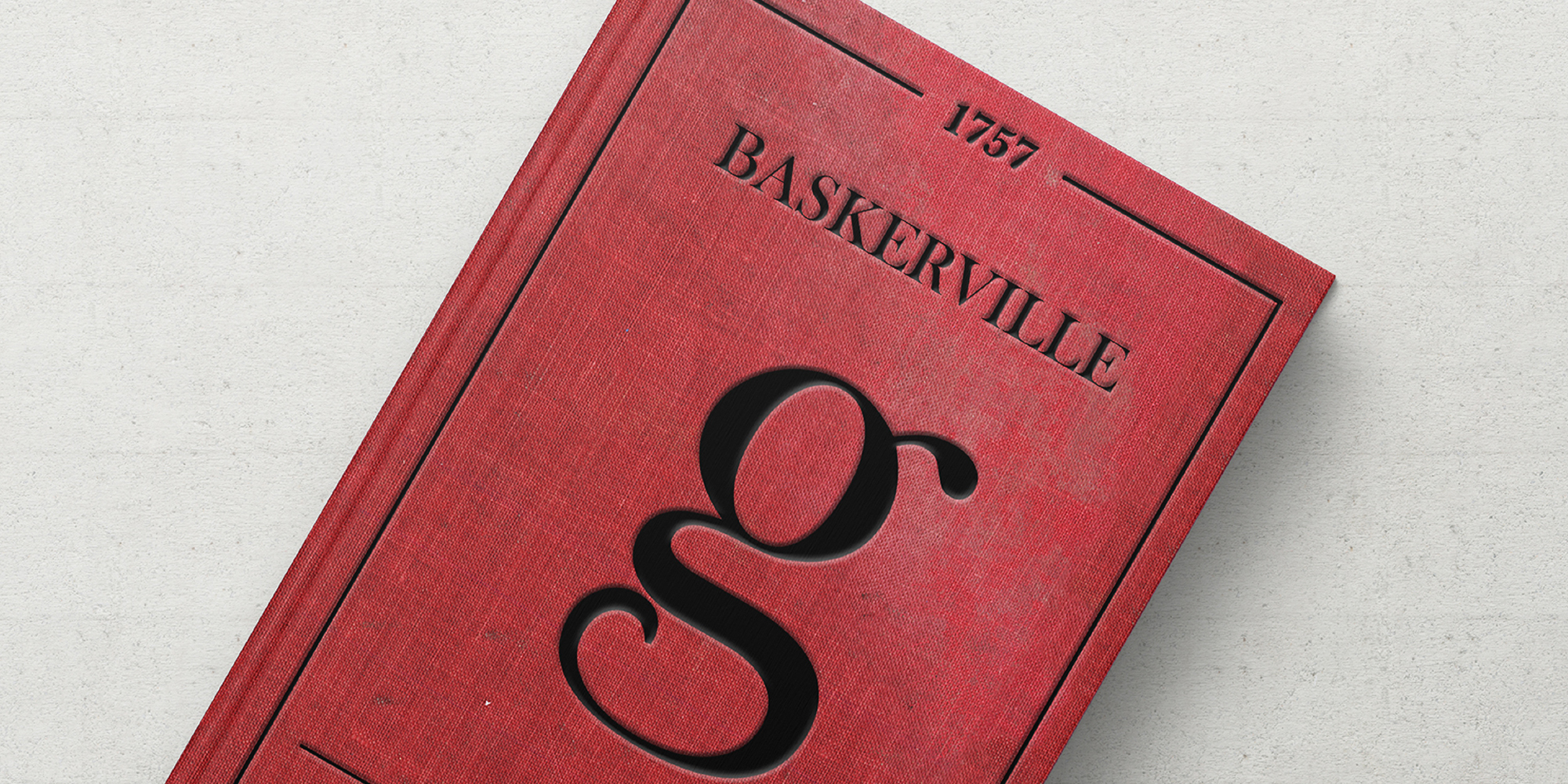
Baskerville Font is perfect for classical book publishing, prestigious literary magazines, academic journal layouts, traditional newspaper design, historical document reproduction, elegant wedding invitations, sophisticated business correspondence, classical music programs, heritage brand identity, and distinguished institutional communications.
What makes Baskerville Font so exciting is its timeless elegance that represents the pinnacle of 18th-century typographic artistry and continues to define sophisticated communication today. This typeface features refined transitional serifs with high contrast between thick and thin strokes, creating exceptional readability and classical beauty that has influenced typography for centuries. The font's distinguished and scholarly character communicates authority and cultural refinement, making it perfect for institutions and brands seeking to establish credibility through connection to the rich tradition of classical learning and literary excellence.
Baskerville Font family includes Regular, Italic, Bold, and Bold Italic weights, along with small caps, oldstyle figures, and extensive punctuation marks. The family also features special character sets including classical symbols, scholarly ligatures, and traditional typography elements that enhance the font's connection to academic publishing and literary tradition themes.
The Baskerville Font Free Download package offers designers access to prestigious classical typography that brings scholarly elegance to any traditional project. This distinguished typeface combines 18th-century design principles with modern technical functionality, creating a powerful visual tool for academic institutions and heritage-focused organizations. Whether you're developing traditional brand identities, designing scholarly publications, or creating distinguished marketing materials, this font provides the authoritative character needed to communicate knowledge and cultural sophistication.
Baskerville Font supports comprehensive character sets including Latin alphabets, numerals, punctuation marks, and special scholarly symbols. The font's classically proportioned spacing reflects traditional printing traditions while ensuring superior readability in both print and digital environments. Its OpenType features include contextual alternates, historical ligatures, and classical typography options that enhance document quality and scholarly credibility.
Professional designers and academic institutions choose Baskerville Font for projects requiring authentic classical appeal and scholarly authority. The font excels in applications where traditional elegance and intellectual credibility are essential, offering the perfect solution for organizations seeking to communicate wisdom, heritage, and connection to centuries of literary tradition. Its classical character makes it ideal for universities, publishing houses, and cultural institutions.
The Baskerville Font Free Download provides creative professionals with an exceptional opportunity to explore classical typography excellence. With its scholarly character variations, traditional design elements, and academic quality, this font represents outstanding value for designers, educational institutions, and creative agencies specializing in traditional visual communications that celebrate the enduring power of classical learning and the timeless elegance of 18th-century typographic mastery and literary excellence.